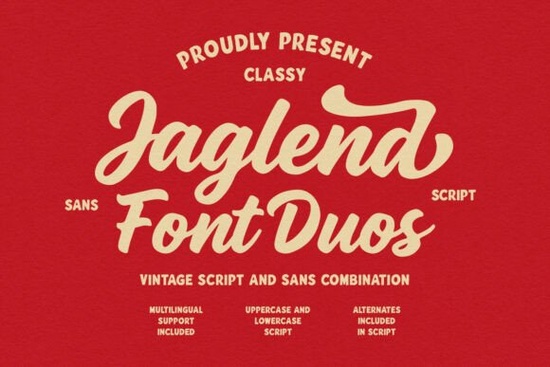
If you're looking for a font pair that feels both timeless and grounded like something you’d see stamped on a vintage baseball jersey or hand-lettered on a craft brewery label Jaglend Font Duo fits naturally into that space. It’s not flashy or overly ornate. Instead, it offers two complementary styles: a bold, smooth script with gentle flow and a sturdy, hand-drawn sans-serif that carries weight and texture. Together, they work well for logos, merchandise, packaging, and posters where authenticity matters more than perfection.
What makes Jaglend different from other script + sans combos?
Most font duos lean either too polished or too rough. Jaglend strikes a middle ground. The script has thick, rounded strokes and relaxed spacing no sharp angles or forced elegance. Its lowercase letters connect smoothly, and the uppercase forms hold presence without shouting. The sans-serif isn’t sleek or geometric; it’s slightly irregular, with subtle line variation and a tactile, almost chalky feel. That contrast gives real visual rhythm not just pairing, but conversation.
You’ll also find practical features built in: full uppercase and lowercase support, alternate characters (like swash capitals or contextual ligatures), and multilingual coverage including Latin Extended-A so it works reliably for English, Spanish, French, German, Polish, and more. That’s especially helpful if you’re designing for international markets or selling print-on-demand items like mugs, tote bags, or apparel with bilingual text.
Where does Jaglend work best?
Think about projects where legibility meets character:
- Logotypes and badges especially for small businesses, sports teams, or local food brands wanting a warm, established vibe
- Packaging design think jam jars, soap labels, or coffee bags where the script handles the brand name and the sans adds clean supporting text
- Retro posters and event graphics its texture holds up well at larger sizes, and the contrast reads clearly even from a distance
- Merchandise mockups because both fonts are well-hinted and export cleanly to PNG, SVG, or PDF, they render consistently across platforms
It’s not ideal for long paragraphs or UI interfaces this is display typography, not body text. But for anything meant to be seen, remembered, and felt, Jaglend delivers quietly confident results.
How does it compare to similar fonts on Creative Fabrica?
If you’ve used Sweetylike, you’ll notice Jaglend trades some of that playful bounce for stronger structure and weight. Sarphine leans more elegant and formal; Jaglend feels approachable and lived-in. And while Montserrat is a clean, versatile sans-serif on its own, Jaglend’s companion sans is intentionally less uniform adding warmth and tactility that pure geometrics can’t replicate.
For educators or classroom creators, Amazing Teacher offers friendlier, rounder shapes but Jaglend suits branding where maturity and heritage matter more than whimsy. It’s the kind of type choice that says “we’ve been here awhile” without needing to say it out loud.
What to keep in mind before using Jaglend
Like most hand-crafted fonts, Jaglend benefits from thoughtful spacing. Kerning pairs aren’t auto-applied in all design apps, so check letterfit especially around T, A, V, and Y in the script. Also, because the sans-serif has visible texture, avoid scaling it too small (below 14pt in print or 20px on screen) where detail might blur.
- ✅ You need a script + sans-serif combo with strong visual contrast and real-world usability
- ✅ Your project involves branding, packaging, or merchandise not long-form reading
- ✅ You value multilingual support and alternate characters for flexibility
- ✅ You’re comfortable adjusting tracking/kerning manually for best results
- ✅ You want something distinctive but not distracting type that supports your message, not overshadows it